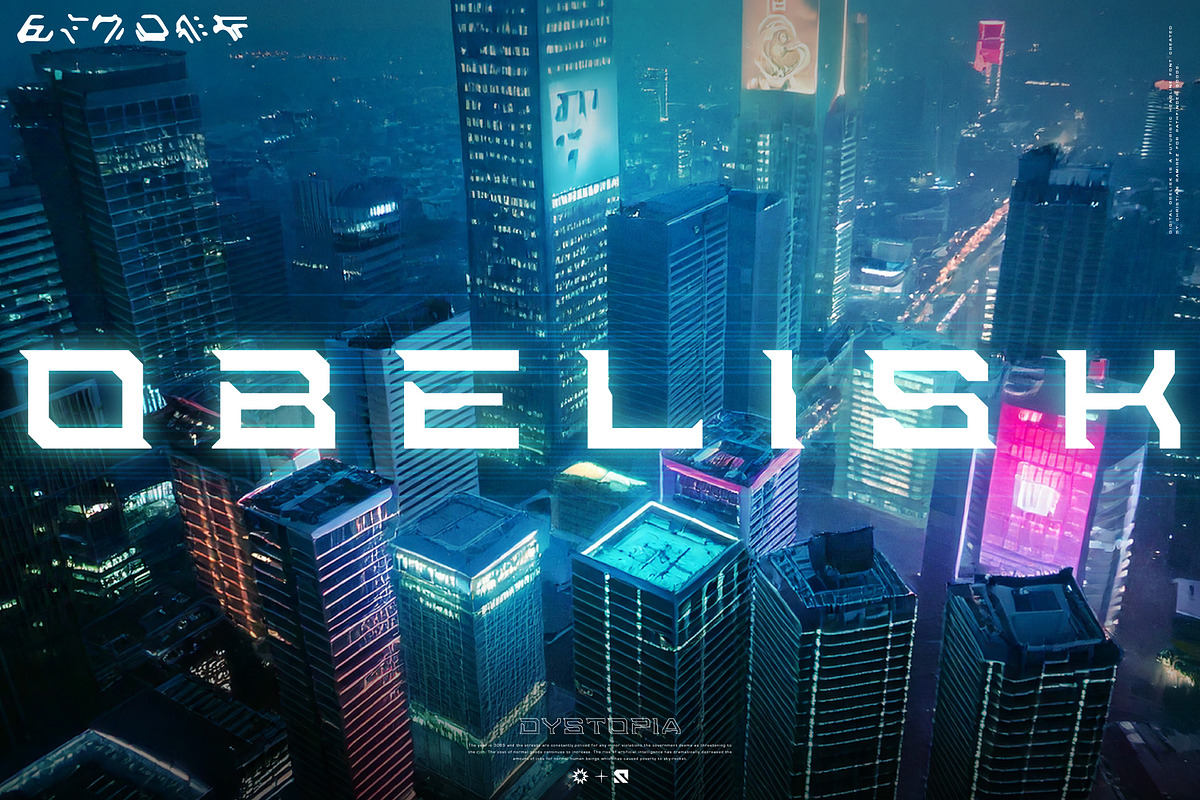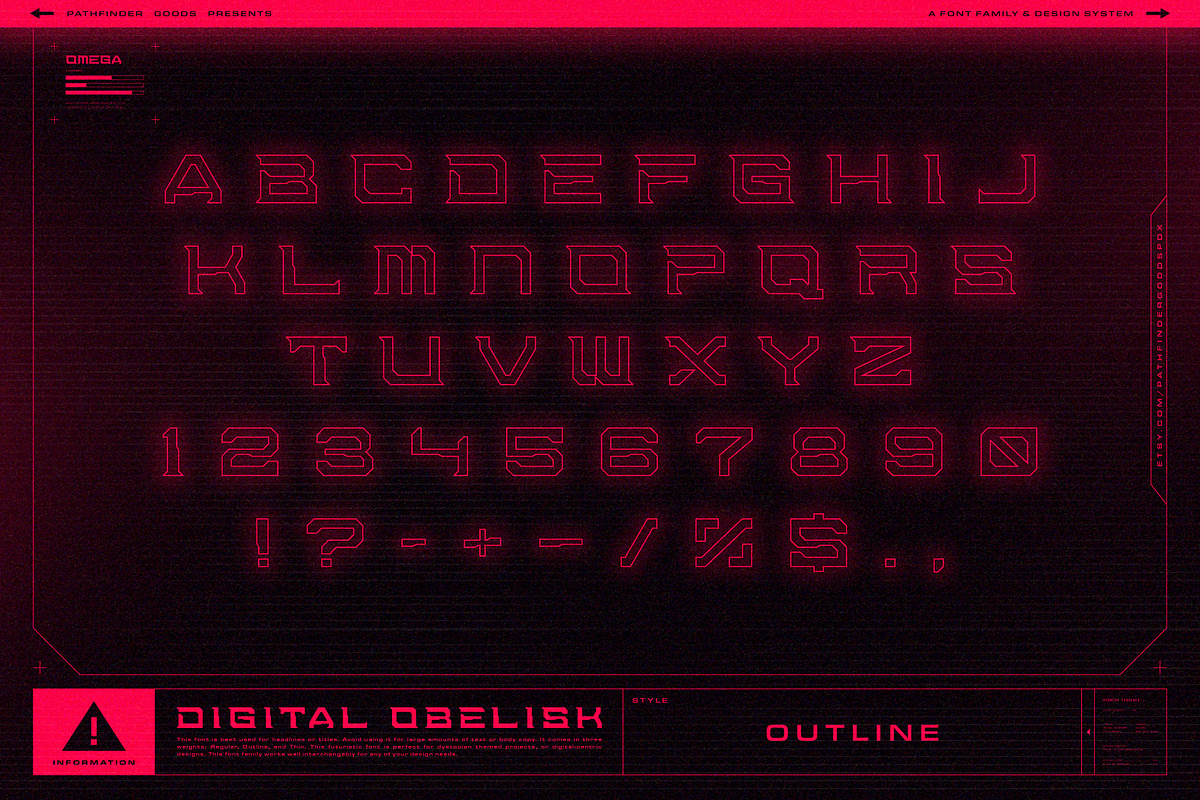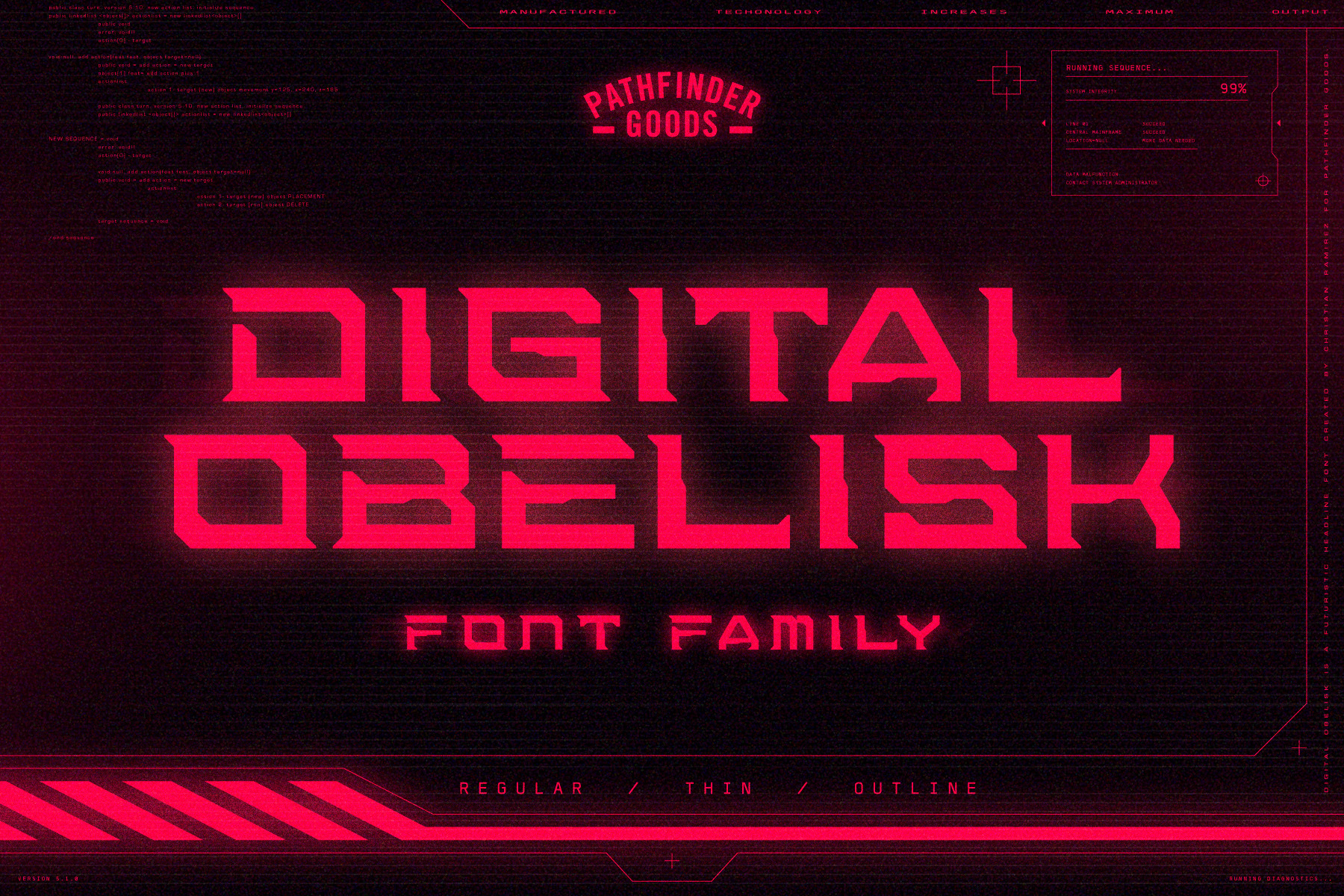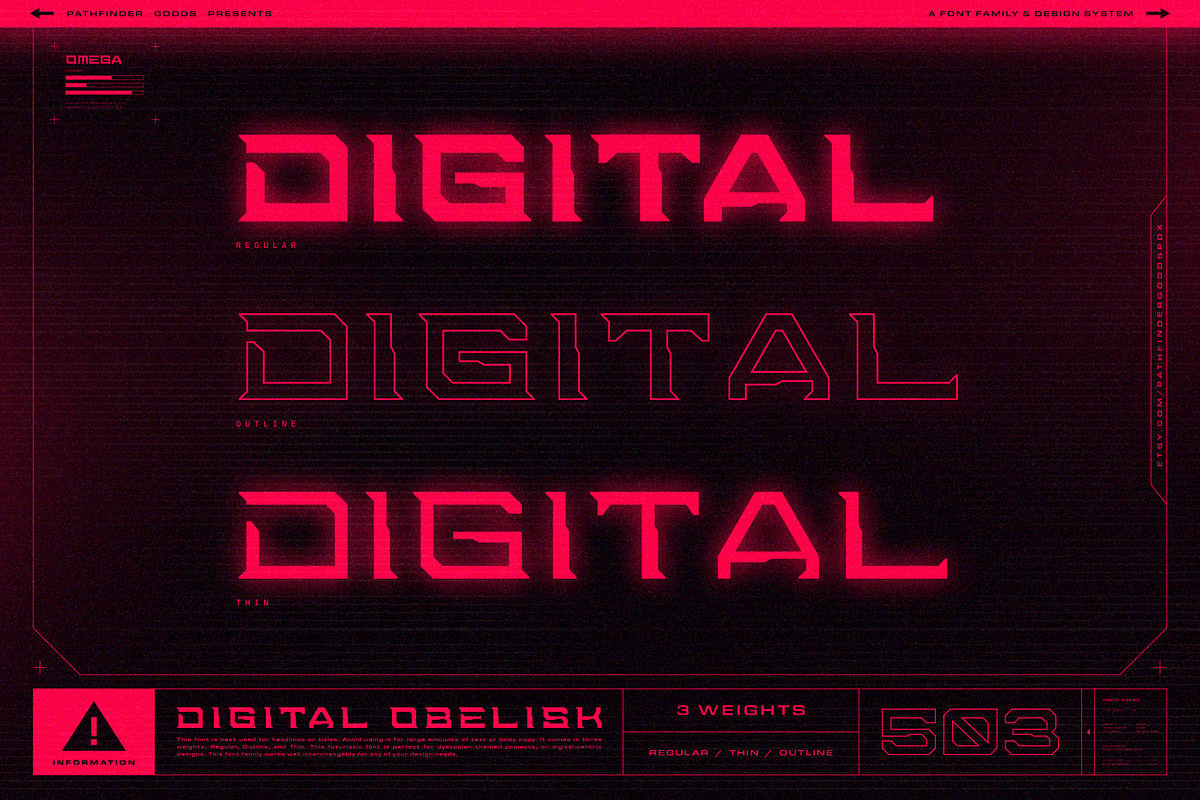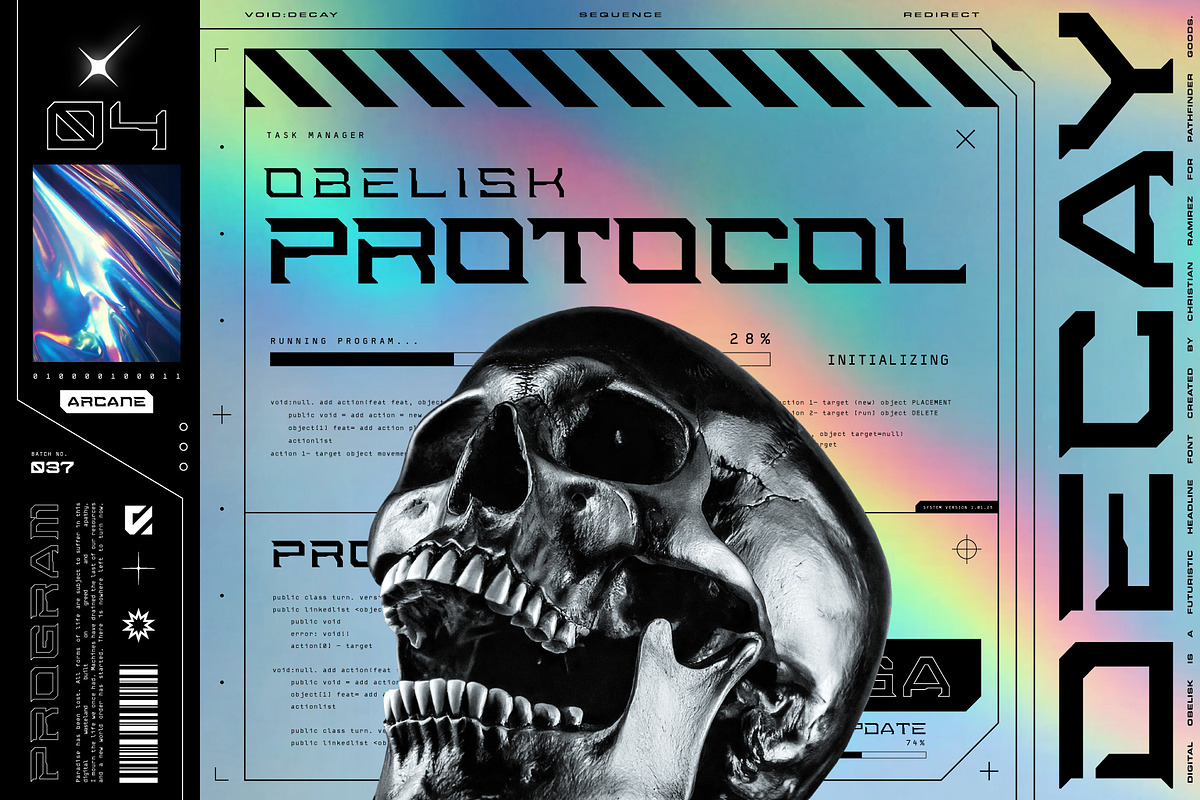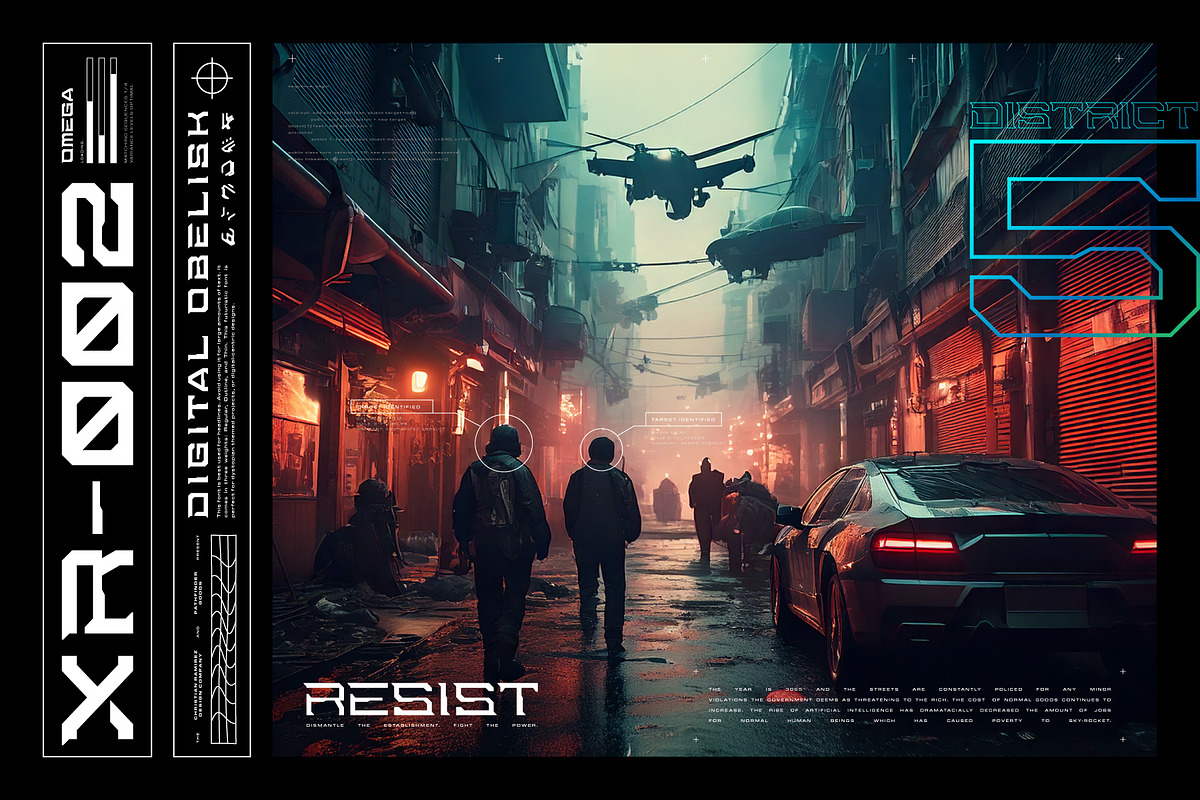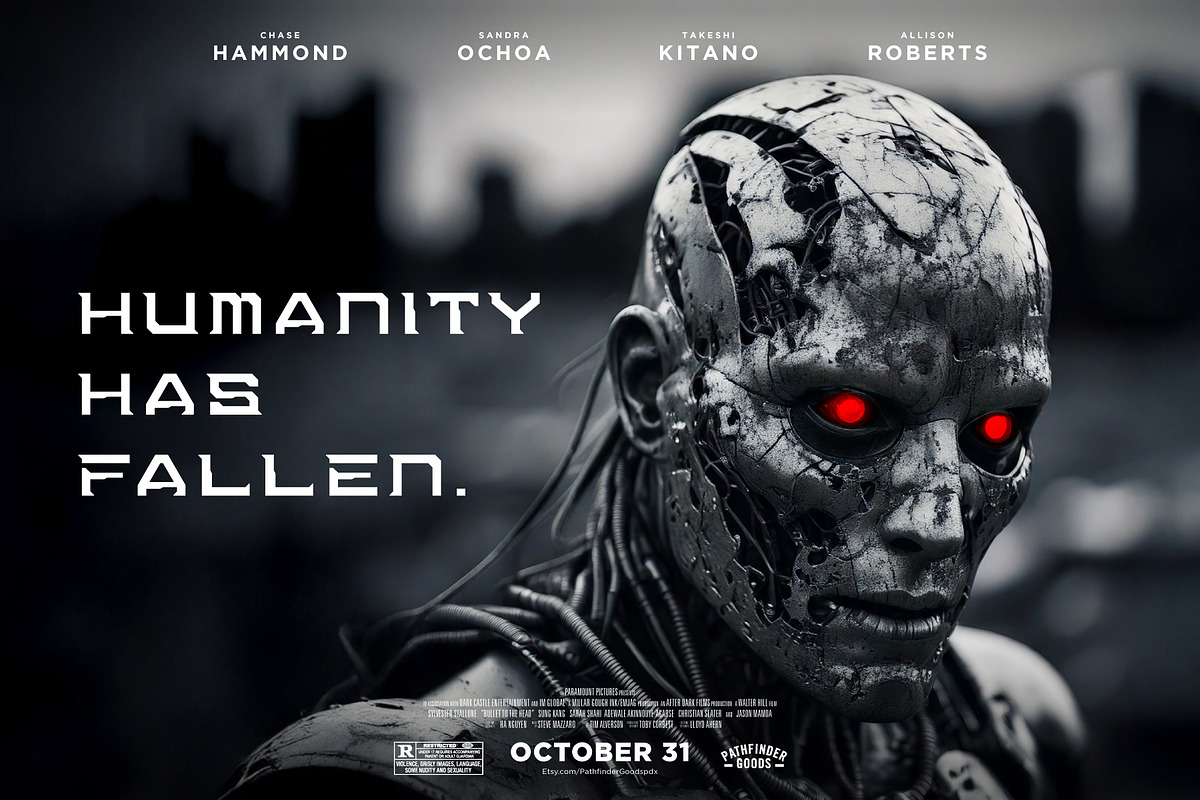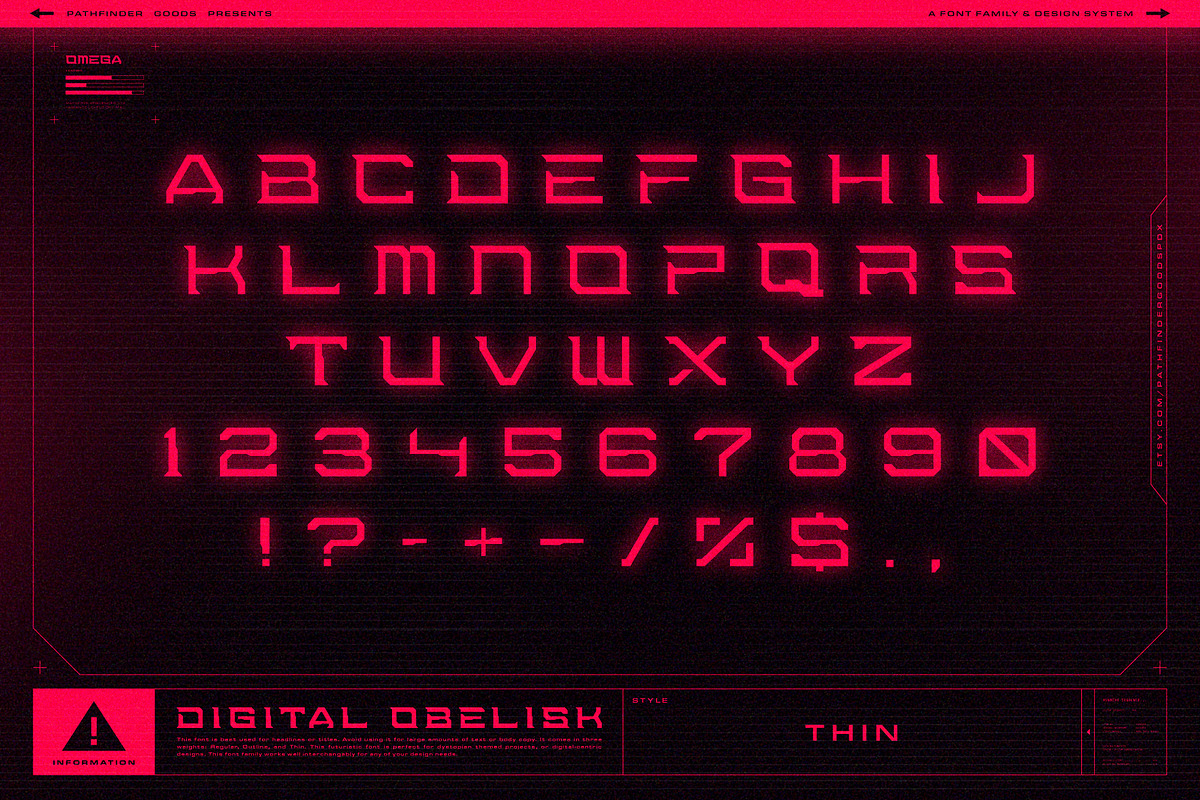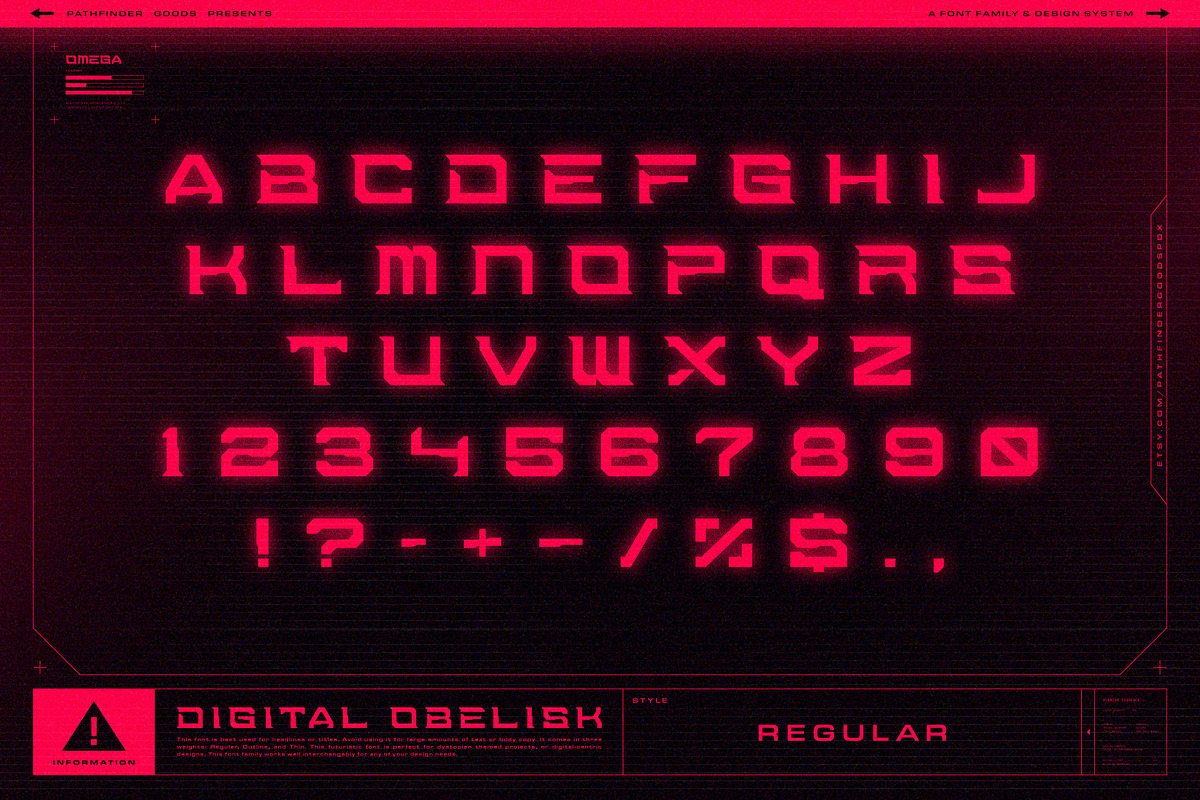
Digital Obelisk – A Cyberpunk Font
Digital Obelisk – A futuristic, digital, cyberpunk headline font family which includes:
This high-tech, futuristic, cyberpunk font family comes in three weights: Regular, Outline, and Thin. Each font can be used interchangeably with the others and is perfect for dystopian themed projects or digital-centric designs.